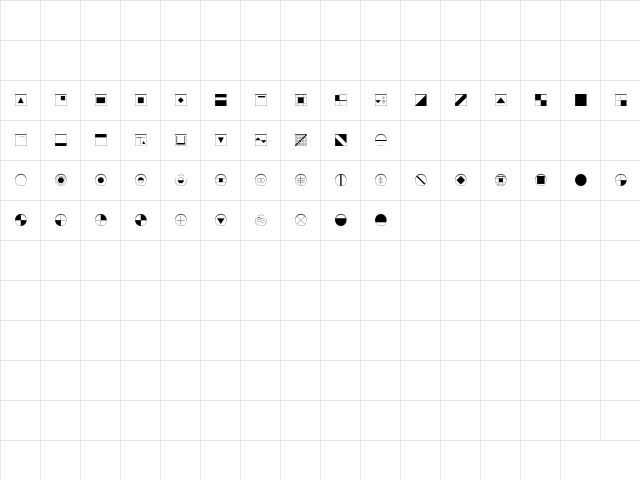
P22 DeStijl Extras Regular
| Foundry | P22 type foundry |
| Designer | Richard Kegler |
Design Context for P22 DeStijl Extras Typeface
P22 DeStijl Extras is a composed and adaptable typeface that performs quietly and consistently across a wide range of design contexts.